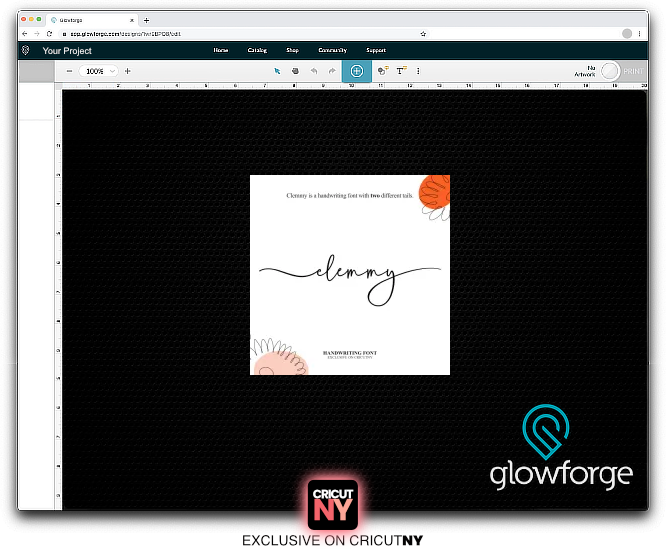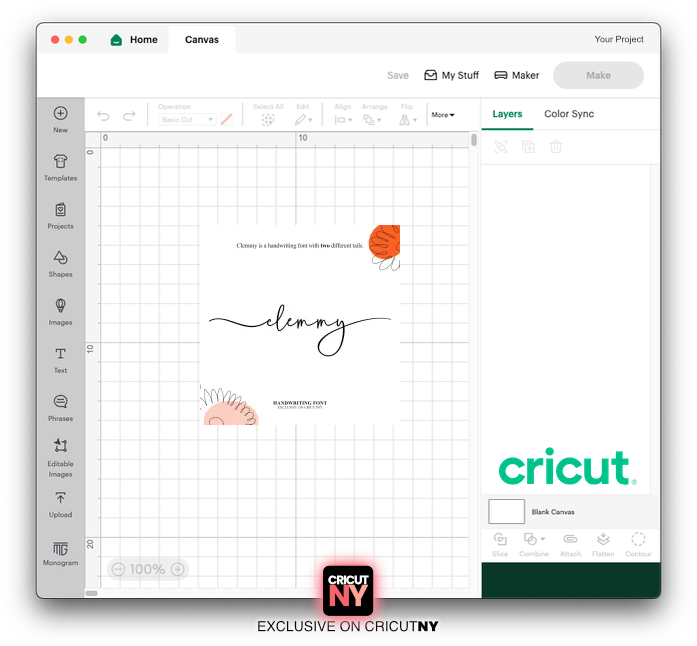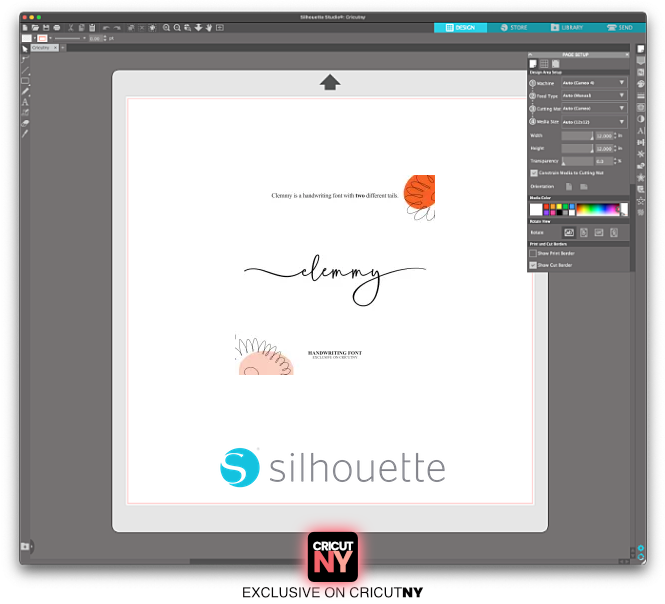
A font with lines on the ends
We are introducing Clemmy, the gentle handwriting font.
Sometimes, we just need a beautiful font with lines on the ends. Whether you need a font to create a signature for your brand or your tumbler, a logo or a design for your craft project, this handwriting font might be the one for you.
The font consists of two different tails letter for each character. And if you speak french, the french accents are included.